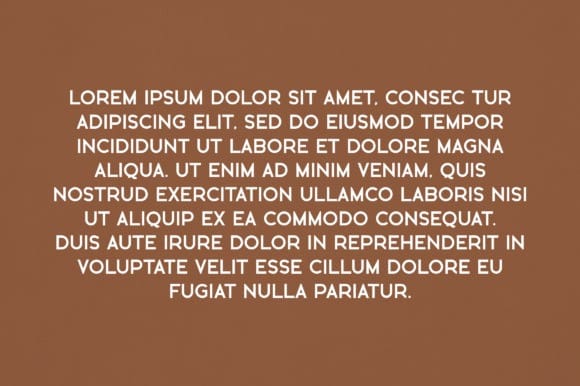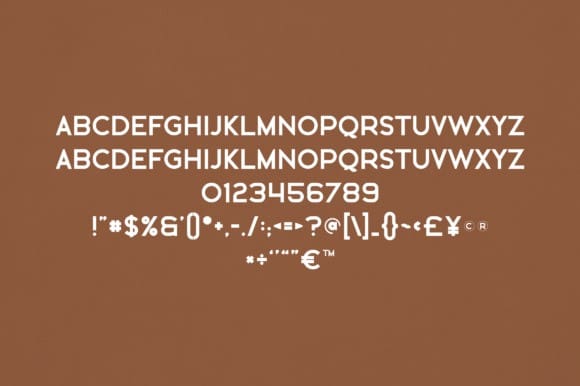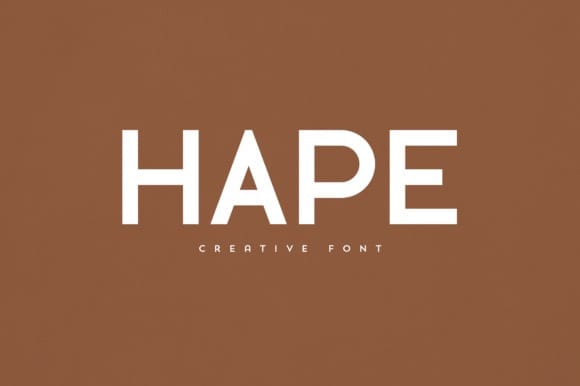
Hape Font
Hape Font is an elegant and versatile display font that will make your typography truly unique! It will enchant every logo, branding, headline, or plain text!